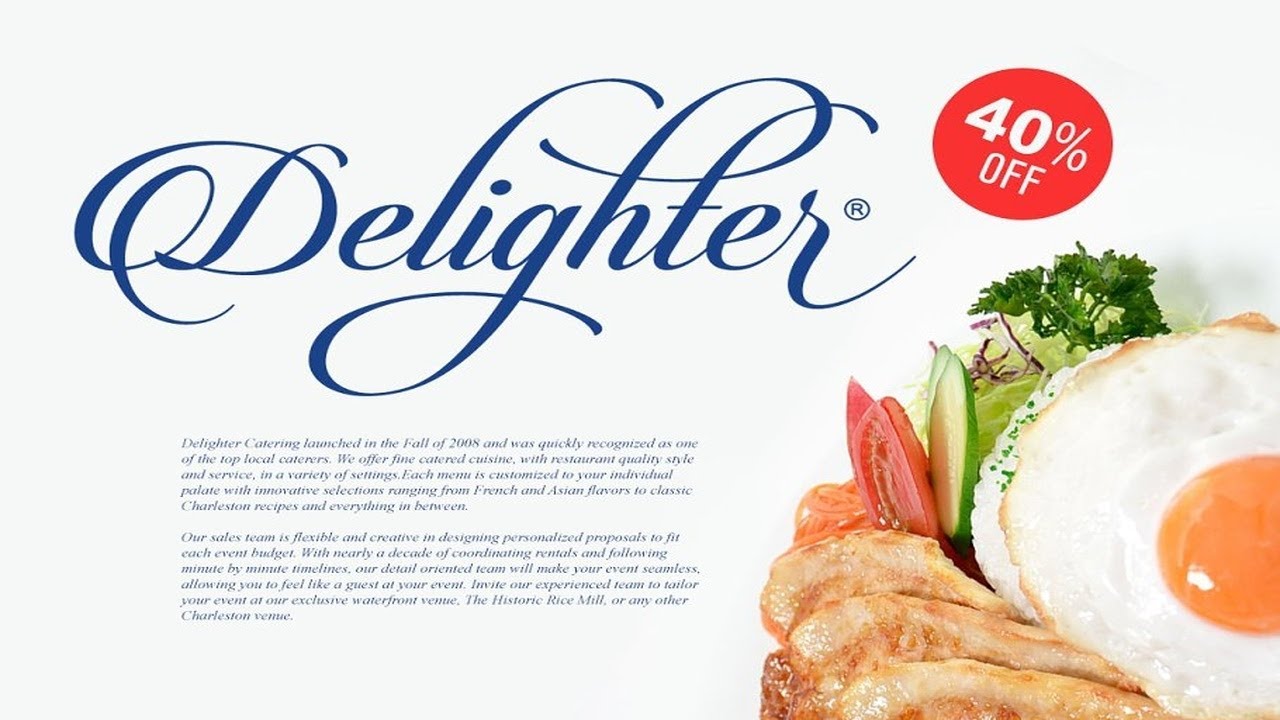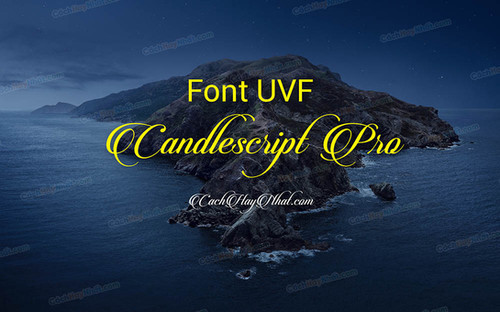
Download Font Uvf Candlescript Pro Viá T Hã A Downloadcdr The body text of candlescript font has been designed with high details, precisely, smooth and flow, so it is suitable used as a logotype, custom typeface, tittle, header, or any kind of advertisements purpose. Candlescript font download is available free from fontget. candlescript is a script type font that can be used on any device such as pc, mac, linux, ios and android.
Candlescript Font Free Download Now Download free candlescript font, view its character map and generate text based images or logos with candlescript font online. Get the candlescript font free! a flowing, elegant script perfect for wedding invitations, logos, and romantic designs. download now and unleash your inner artist!. Download and install candlescript font free free for demo use, and view its characters map, with basic and extended font information. Whatfontis whatfontis download candlescript pro regular font. candlescript pro regular by vast.